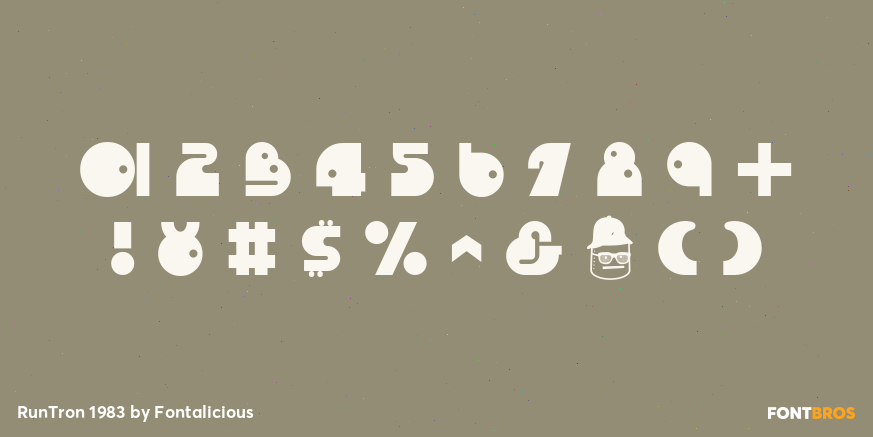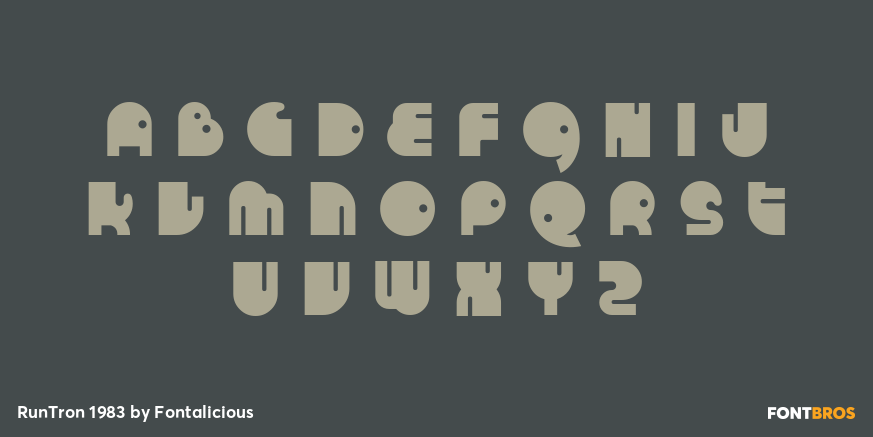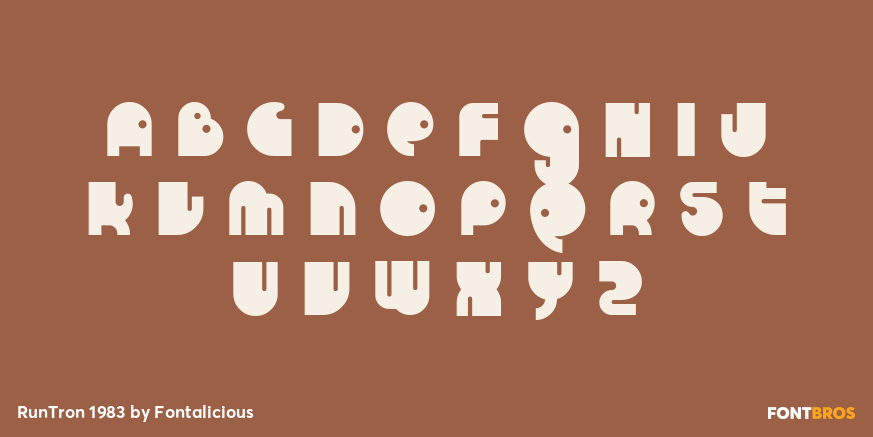
RunTron 1983
Font Family by Fontalicious
He bites rhymes, he's plated in 24-Karat gold and is the arch-nemesis of LL Cool Bot. He's RunTron 1983, the flashy new prototype on the street. Armed with an entourage of 5 evil robots, he vows to one day knock LL CB off the top and accrue his infamous golden microphone.